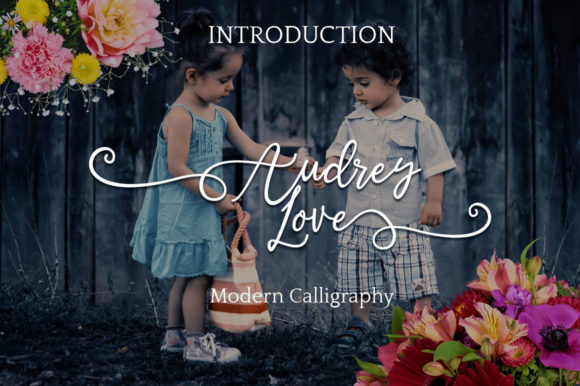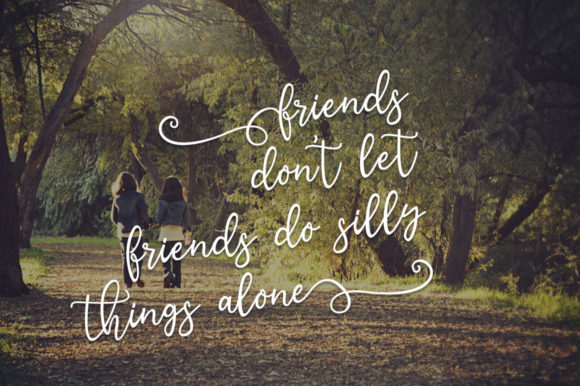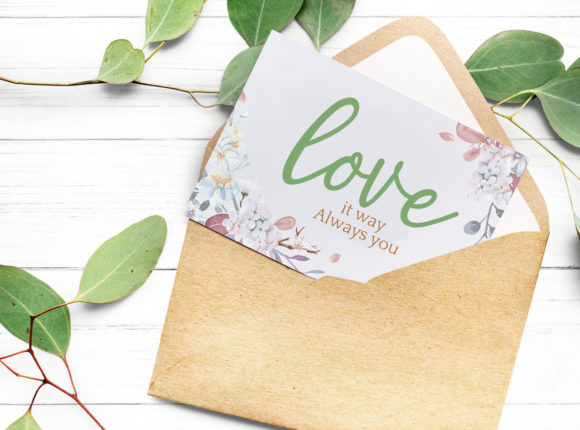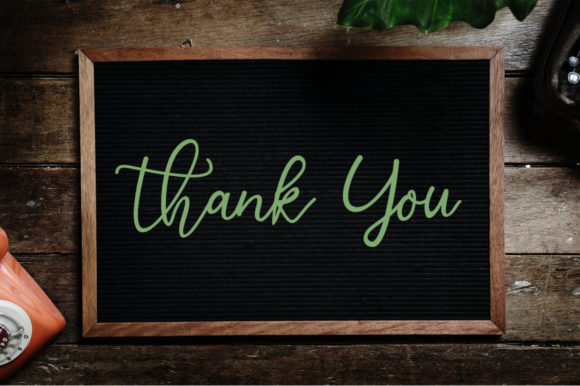
Audrey Love Font
About Audrey Love Font
Audrey Love is a stunning and beautiful handwritten font with a bold feel. It will turn any design project into a true standout!